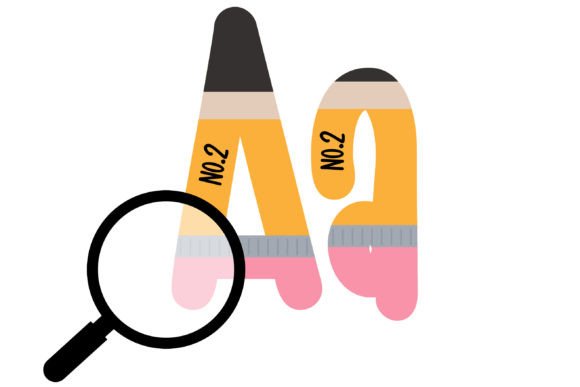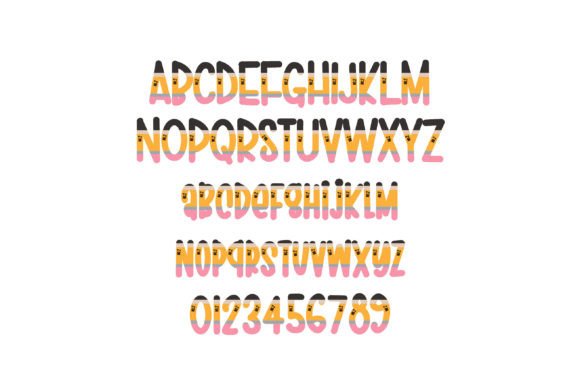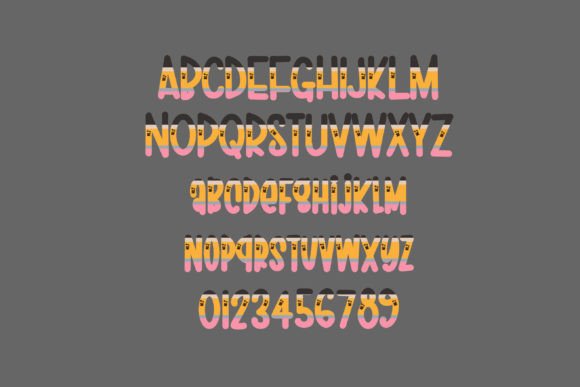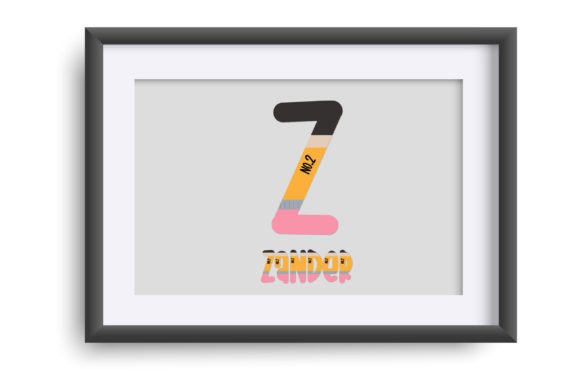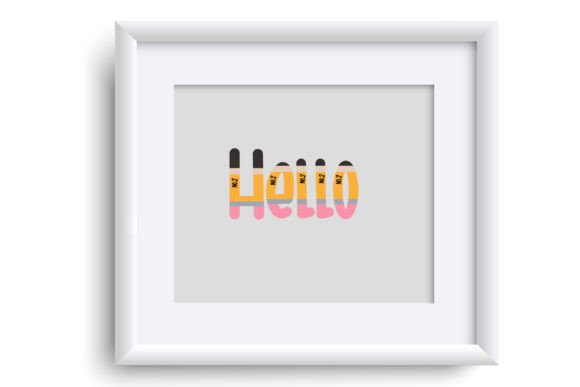
Discover the Joy of Pointless Font
Do you remember the thrill of picking up a new set of colored pencils and unleashing your creativity on a blank sheet of paper? For many of us, that moment sparks a sense of excitement and possibility, inviting us to bring our imagination to life. If you’re a designer, you know that finding the right design resource can make all the difference between a good project and a great one.
That’s where Pointless Font comes in – a vibrant, youthful font that’s perfect for adding a touch of personality to your designs. With its playful, pencil-like aesthetic, this font is sure to bring a smile to your face and inspire your next creative project. Whether you’re working on a high-quality design for a client or simply looking for a fun way to express yourself, Pointless Font is a valuable addition to your design toolbox.
Key Features of Pointless Font
- High-quality vector design with a transparent background, perfect for use in creative projects.
- Unique characteristic: The Pointless Font features a unique, playful design that adds a touch of whimsy to any creative project.
- Perfect for use in graphic design, digital art, and other creative pursuits where a high-quality, customizable font is needed.
Honest Review: Pointless Font
As a designer, I’m always on the lookout for high-quality design resources to elevate my creative projects. Recently, I stumbled upon Pointless Font, a free download that caught my eye. In this review, I’ll share my honest thoughts on this design resource.
- Unique and creative font styles that can add a touch of personality to any design project.
- Transparent background, making it easy to customize and integrate into various design elements.
- Limited font options, which may not be suitable for larger-scale design projects.
Overall, Pointless Font is a great addition to any designer’s toolkit. While it may have some limitations, its unique styles and transparent background make it a valuable resource for creative projects. If you’re looking for a free design resource to spice up your work, Pointless Font is definitely worth checking out.
Tips for Getting the Most Out of Pointless Font
Experiment with different font sizes and styles to get the most out of Pointless Font. You can also pair Pointless Font with other design elements to create a unique look. Don’t be afraid to try out different combinations to find the perfect fit for your project.
Pointless Font is perfect for use in creative projects such as logo designs, infographics, and social media graphics. It’s also great for use in presentations, documents, and websites. With its high-quality design and transparent background, Pointless Font is a versatile design resource that can be used in a variety of contexts.